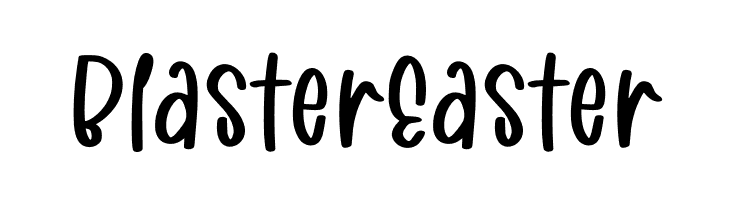
A modern inline font with geometric elegance and bold structure.
A modern, geometric font with sharp angles and clean lines.
A playful and whimsical font with irregular, quirky letterforms.
A bold, organic font with a hand-carved, rustic appearance.
A bold, geometric font with strong, angular shapes and clean lines.
A modern, geometric sans-serif font with bold, clean lines.
A playful, bold, and rounded font with a hand-drawn feel.
A playful, rounded, and slightly italic font with a modern and friendly style.
A bold, rounded font with a modern and playful style.
A modern, geometric outline font with clean lines and rounded edges.
A playful, hand-drawn font with a whimsical and friendly style.
A bold, angular font with sharp, geometric edges and a dynamic appearance.
A playful, bold font with rounded strokes and whimsical shapes.
A playful, handwritten font with a whimsical and creative style.
A bold, decorative font with clover leaf patterns for a playful touch.
A playful, hand-drawn font with a whimsical and informal style.
A playful and whimsical font with dynamic curves and varying stroke widths.
A playful, bold font with a whimsical, hand-drawn style.
A bold, playful font with thick, rounded strokes and a whimsical style.
A bold, cartoonish font with a playful and dynamic style.
A bold, italicized font with a playful, cartoonish style.